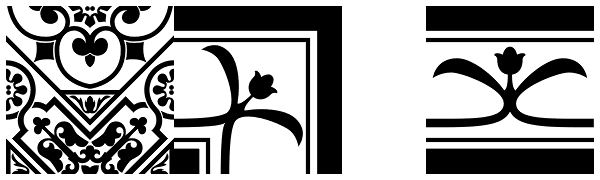
Sopi
Sopi is a typography of ornaments, borders and combined frames. It was inspired by the design of limestone tile floors, located in different places in Buenos Aires. All characters have the same measure, which enables the possibility of any desired...